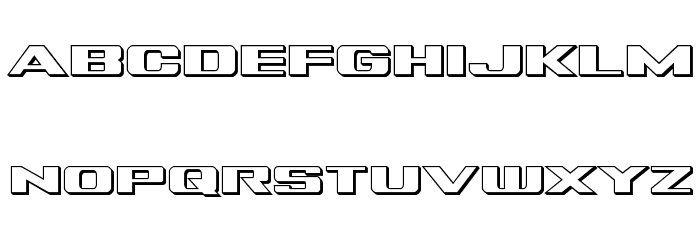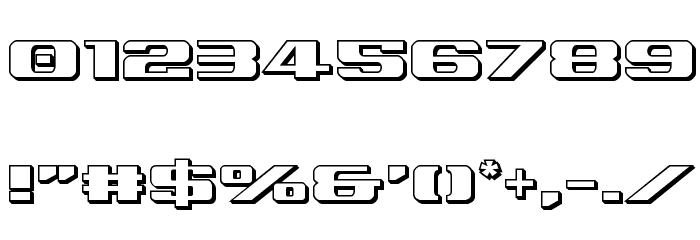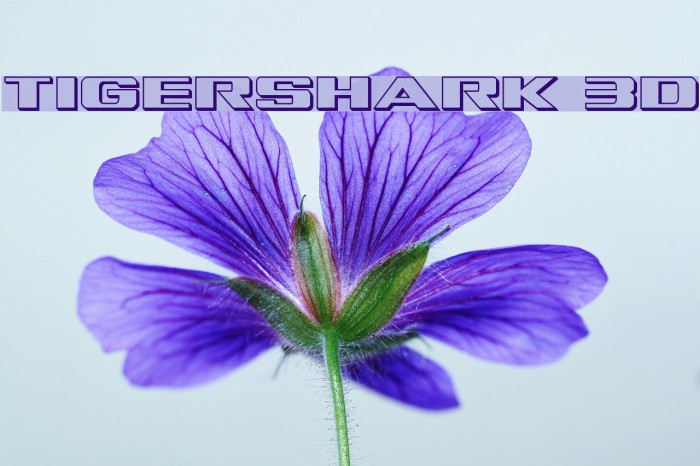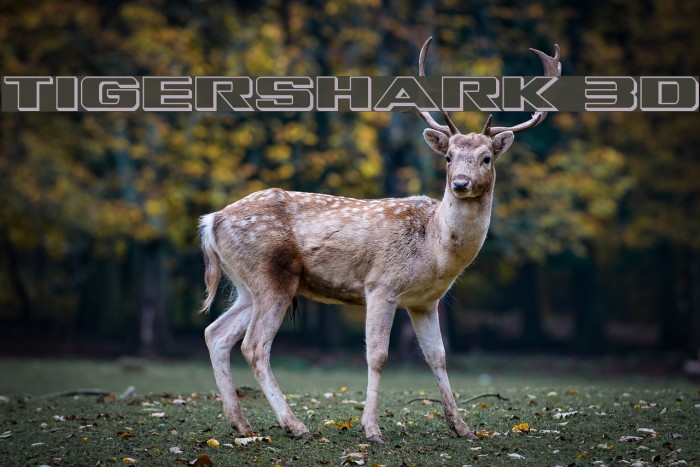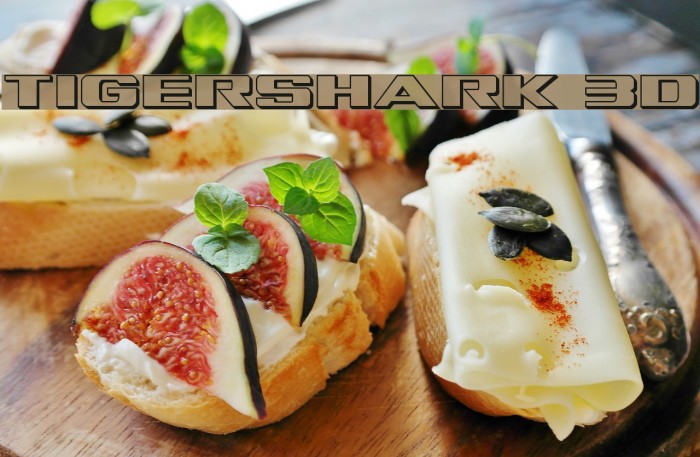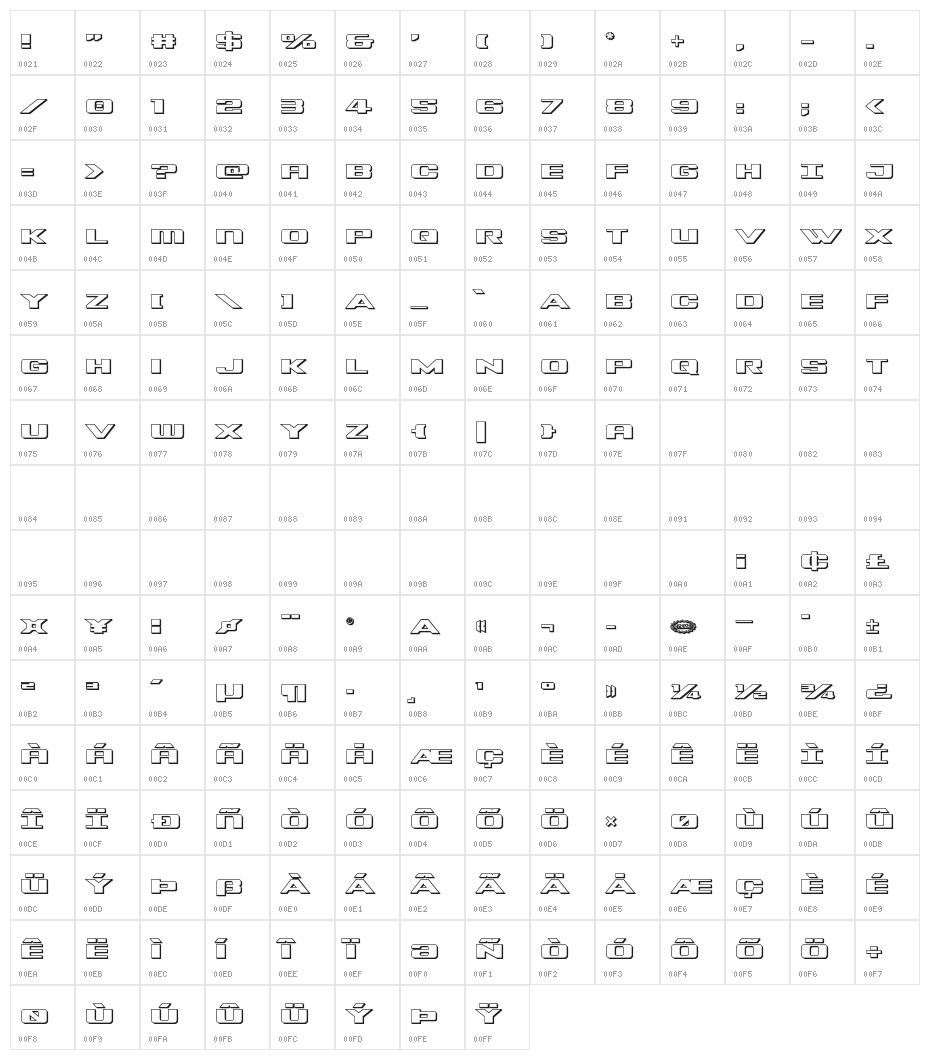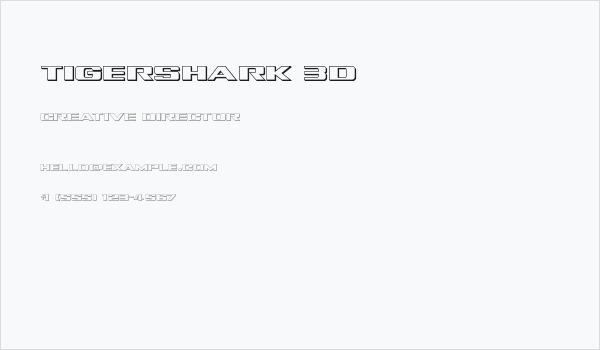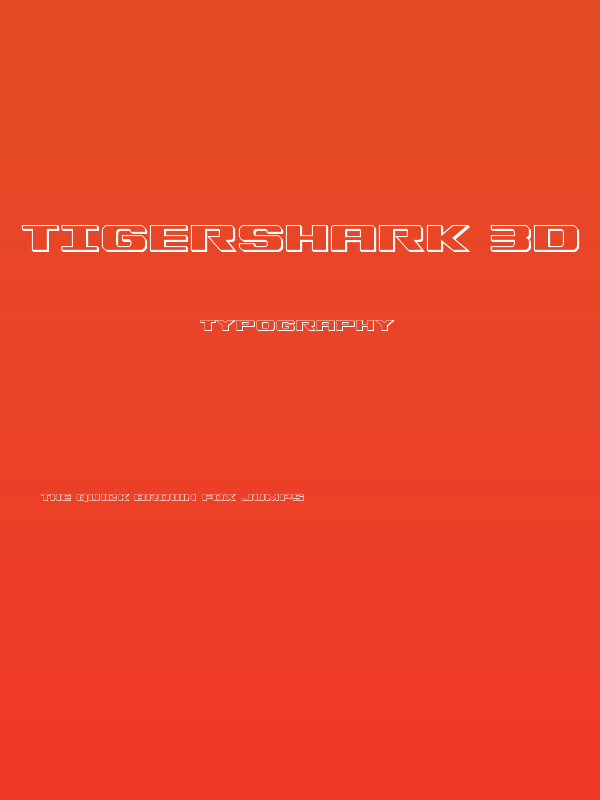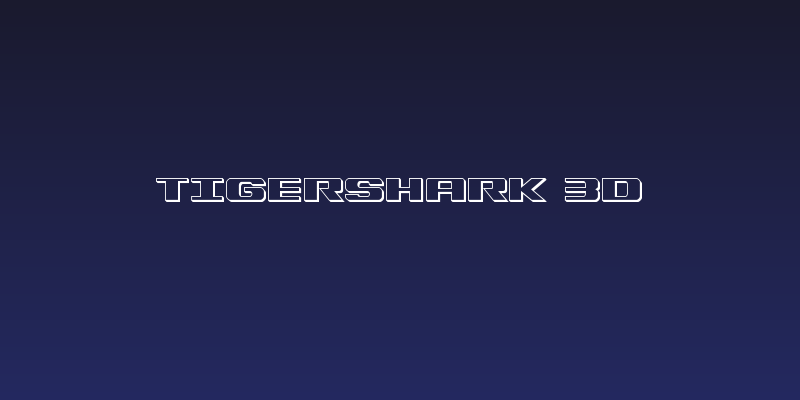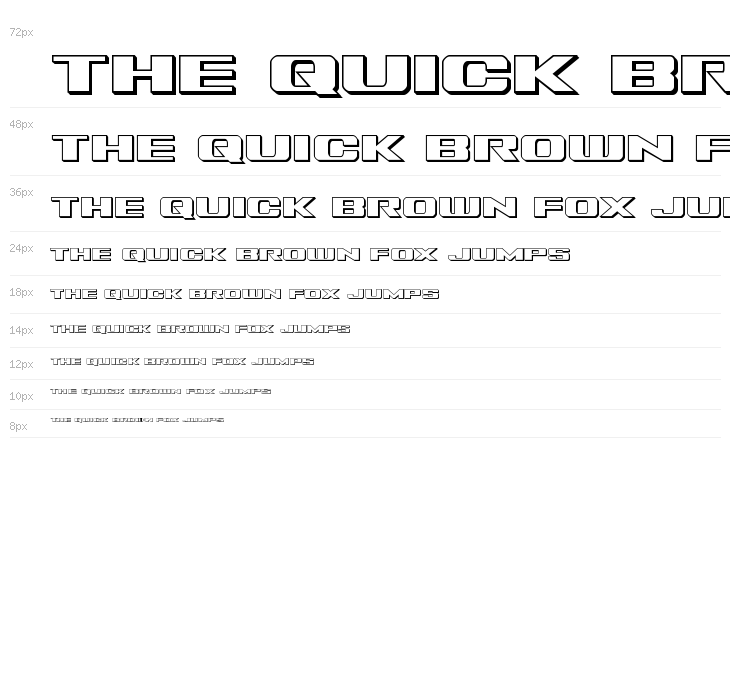
Tigershark 3D Font
This font features a bold, three-dimensional design with a futuristic and geometric aesthetic. The characters are outlined with a thick border, creating a strong visual impact. The uppercase letters are uniform in height, with sharp angles and clean lines that give a sense of precision and modernity. The numbers and special characters follow the same design principles, ensuring consistency across all glyphs. The font's style is reminiscent of digital or sci-fi themes, making it suitable for projects that require a bold and eye-catching typeface.
A bold, 3D geometric font with a futuristic and digital aesthetic.
- Proposed Projects: Ideal for video game titles, tech branding, sci-fi movie posters, and digital interfaces.